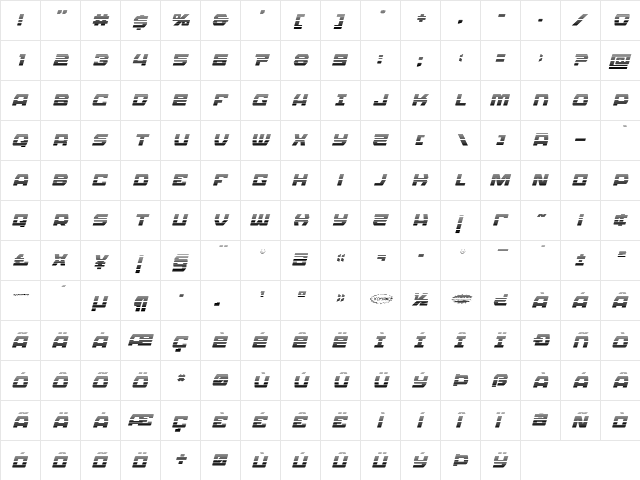
Olympic Carrier Gradient Italic Italic
Design Context for Olympic Carrier Gradient Italic Typeface
Olympic Carrier Gradient Italic takes a measured approach to typography — its balanced proportions and neutral character make it a reliable workhorse for both digital and print work. The slanted form adds forward momentum and visual energy.